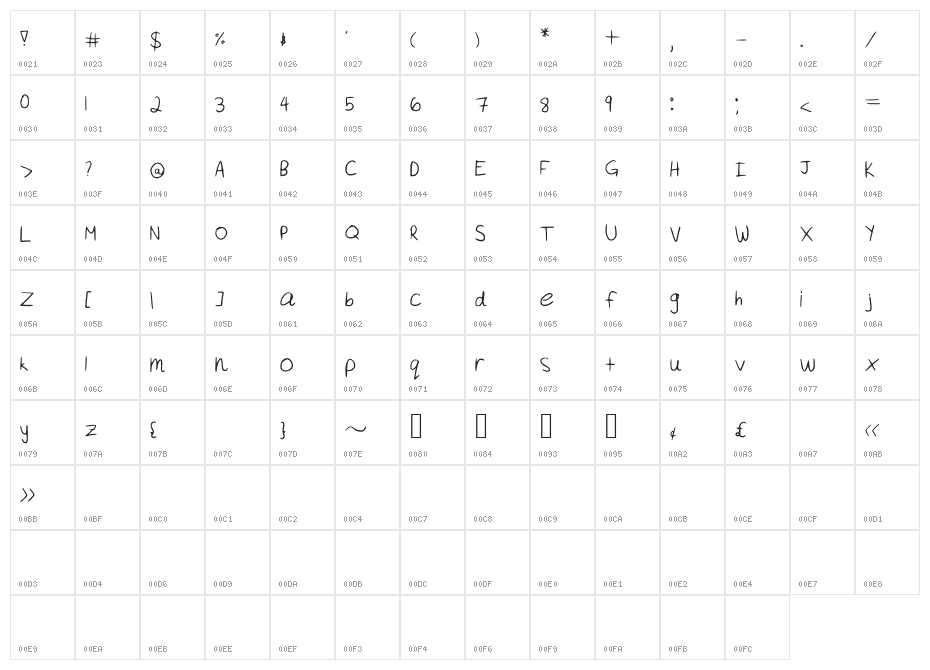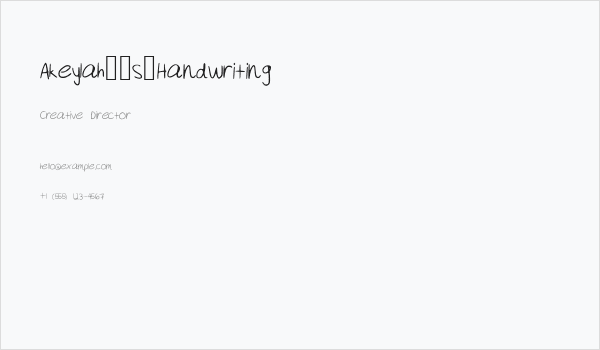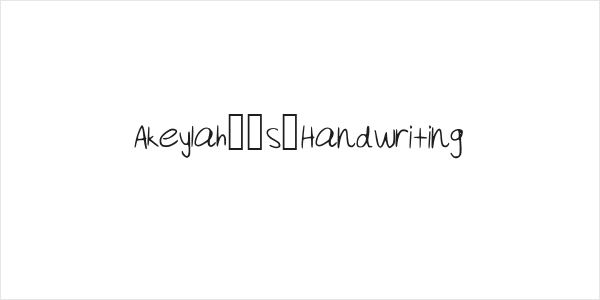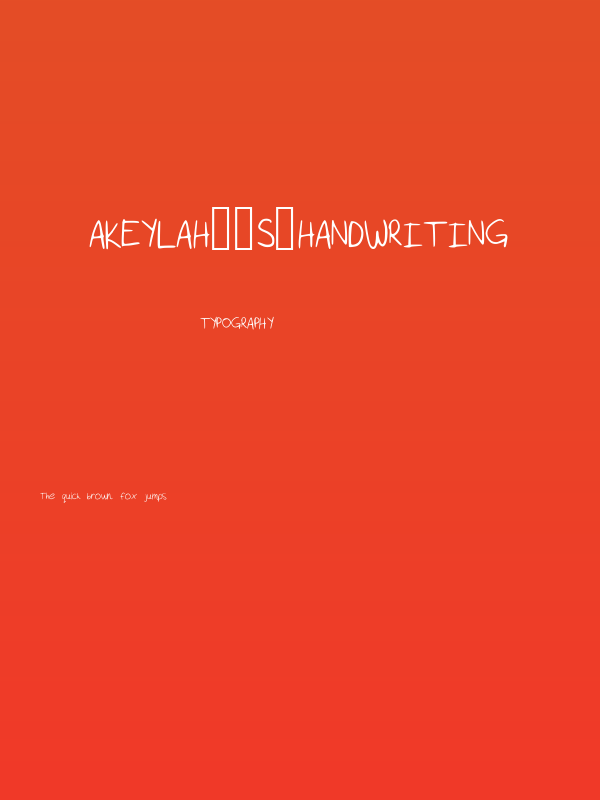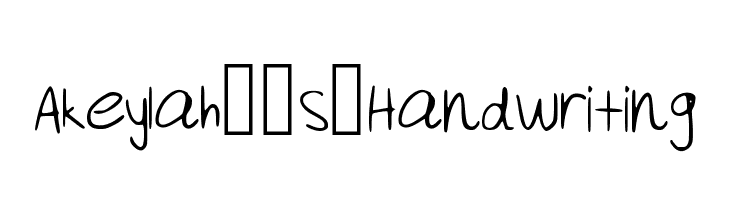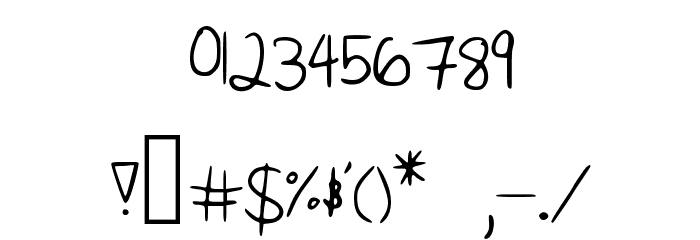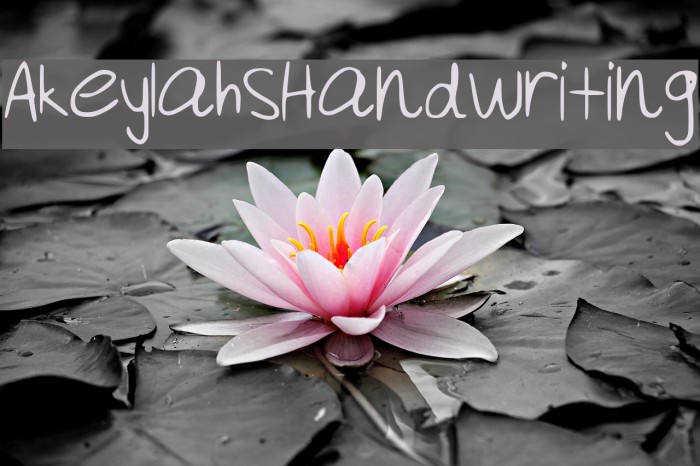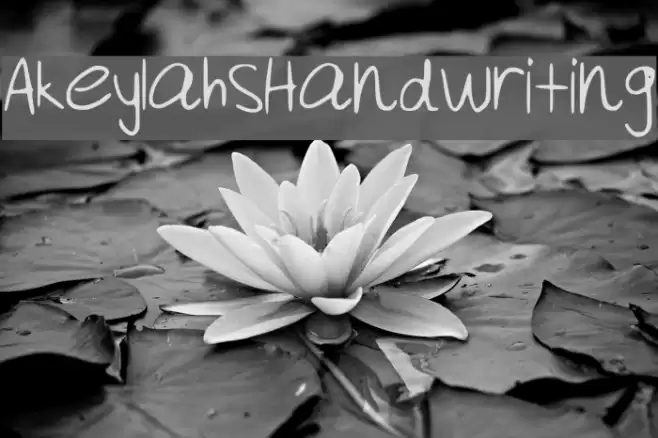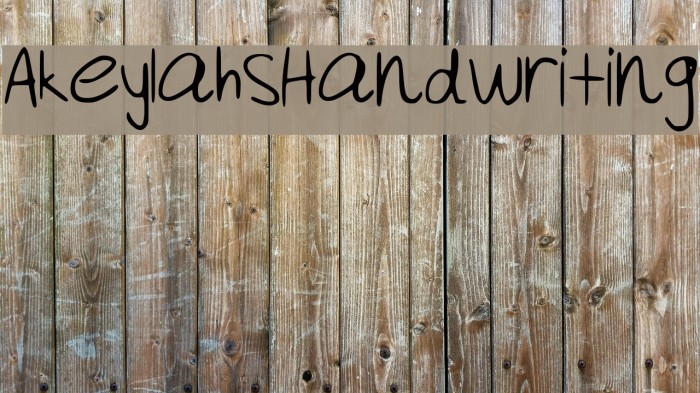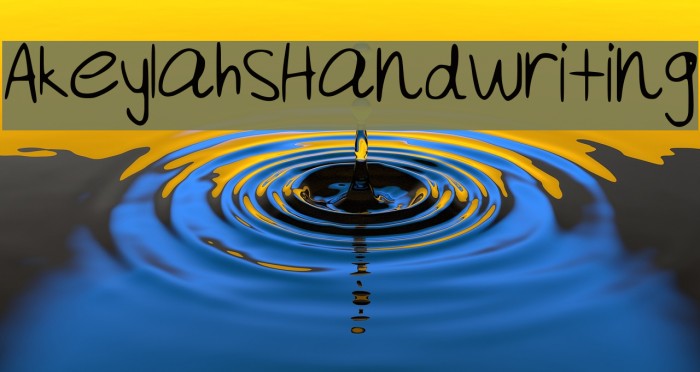
Akeylah__s_Handwriting Font
This font exudes a casual and playful handwritten style, characterized by its smooth, flowing curves and slightly irregular letterforms that mimic natural handwriting. The uppercase letters maintain a consistent height, while the lowercase letters vary slightly, adding to the informal aesthetic. The numerals are clear and legible, matching the overall style of the alphabet. Special characters are included, maintaining the same playful and approachable feel. This font is perfect for projects that require a personal touch, such as invitations, greeting cards, or creative branding.
| Proposed Projects | Ideal for invitations, greeting cards, personal branding, and creative projects. |